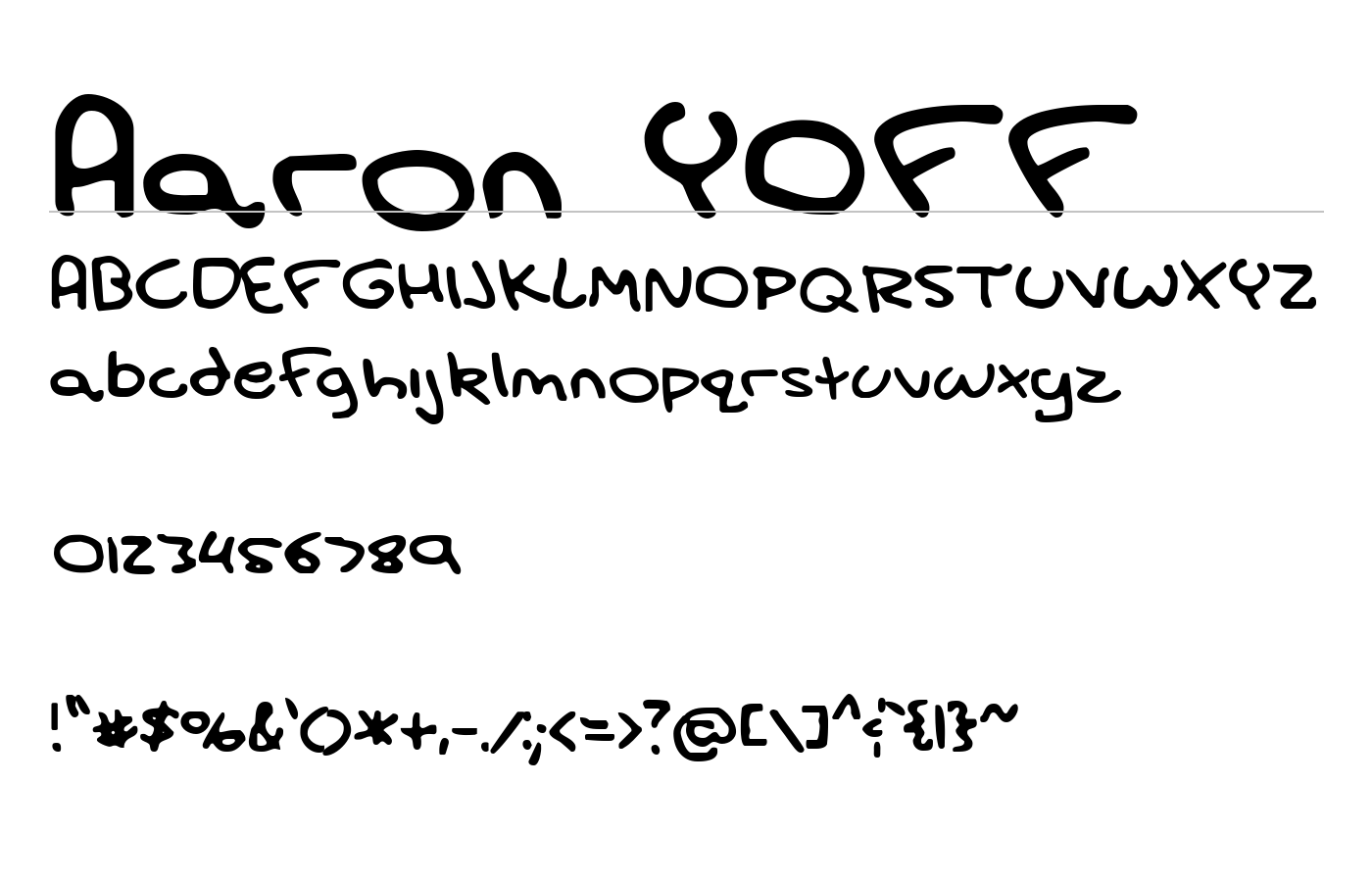
Aaron YOFF is a casual, hand-drawn sans serif font with a playful and friendly character. Its slightly irregular, rounded letterforms and moderate x-height give it an approachable, informal feel, making it ideal for creative projects, children’s materials, or branding that seeks a personal touch. This font works best for headlines, logos, and designs where a warm, handwritten style can bring personality and charm.
Aaron YOFF Font
About Aaron YOFF Font